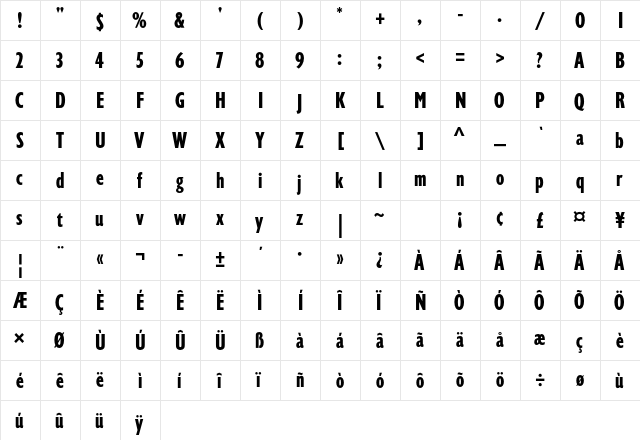
Gill Display Compressed Std Regular
| Designer | Alan Meeks |
Design Context for Gill Display Compressed Std Typeface
Gill Display Compressed Std is built around its visual character rather than neutral utility — its distinctive forms are designed to make an impression at display sizes.
Font Pairing: Pair with a clean neutral sans-serif for body copy to let Gill Display Compressed Std's character lead without overwhelming the composition.
Pro Tip: Treat Gill Display Compressed Std as the centrepiece of your typographic hierarchy. One strong heading set in a decorative face can carry an entire layout.